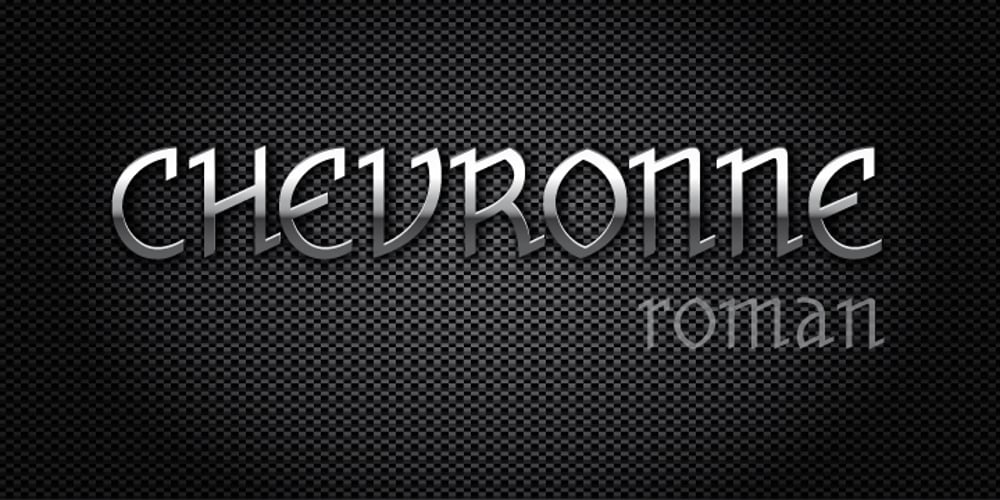
Chevronne Font Family was designed by Ricardo Rousselot and published by EdyType. Chevronne contains 1 styles and family package options. Chevronne is good for any time when a clear and modern type is needed. Its futuristic and crisp looks, with a flavor of Art Deco, make it ideal for large signs or for eye-catching headlines due to its easy readability. Here is a typeface that won’t deceive nonconformists, and is ideal for those who want to stand out from the crowd. Suitable for use in a logotype for an automobile or anywhere that clarity is needed. The Editorial and Press world would be delighted using Chevronne.